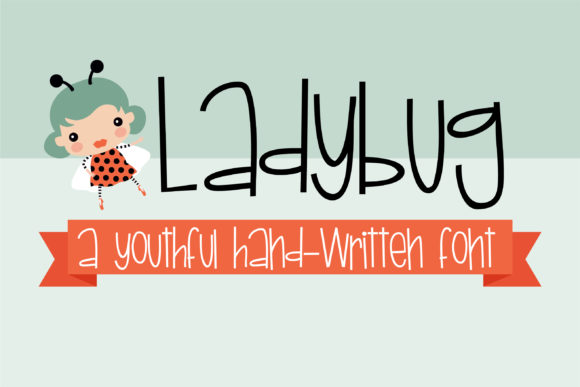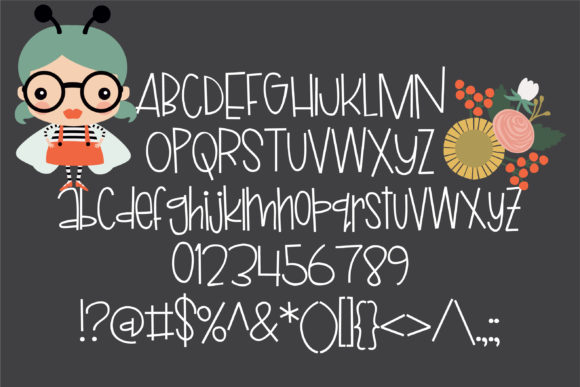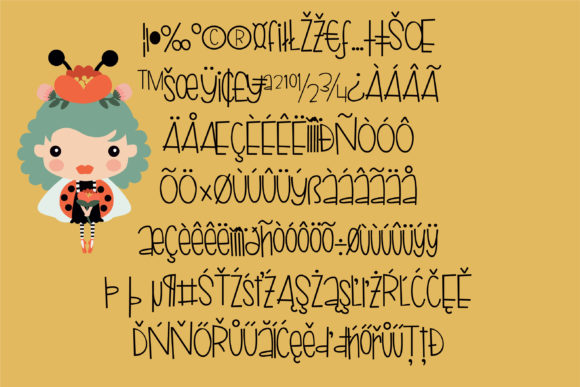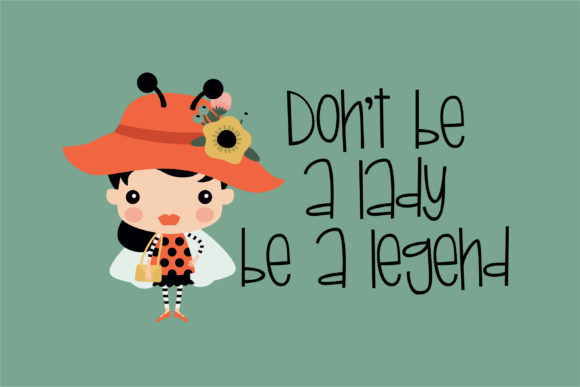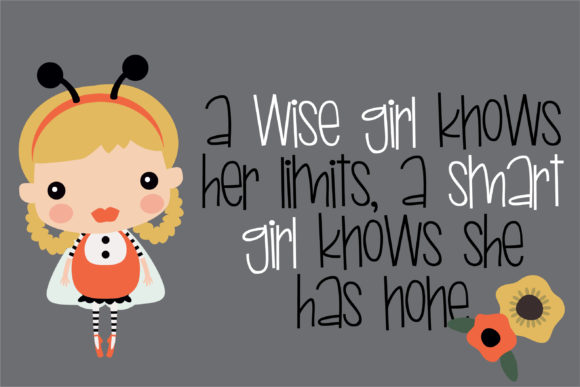
HomeScript FontsLadybug Font Script Fonts Ladybug Font FacebookXPinterestWhatsApp Ladybug Font Poster 2 Ladybug Font Poster 3 Ladybug Font Poster 4 Ladybug Font Poster 5 About Ladybug Font Ladybug is a whimsical handwritten font with a playful charm. It will add an adorable feel to any design project! DOWNLOAD NOW People also explored Aquatix Font Dixey Font Really Dizzy Font Fossegrim Clarra Font Daylight Font Arunika Font Dingbats Abstract Font Simple Handlettering Font 290 0 TagsLadybug Font Previous articleDragon Breath FontNext articleMythological Font LEAVE A REPLY Cancel reply Comment: Please enter your comment! Name:* Please enter your name here Email:* You have entered an incorrect email address! Please enter your email address here Website: Save my name, email, and website in this browser for the next time I comment. Personal Use Free Sushi Stroke Personal Use Free Read more about this font Stone Cold Personal Use Free Read more about this font Rolling Door Personal Use Free Read more about this font The Sweet Neo Personal Use Free Read more about this font BLOG The 10 Best Handwriting Fonts to Add Personality to Your Designs 10 of the Best Handwriting Fonts for Adding Personality to Your Designs There will undoubtedly be no other better choice than handwriting fonts to give... How to Install and Use Fonts on Windows, macOS, and Web Projects Best Fonts for YouTube Videos: Make Your Thumbnails Stand Out 5 Fonts That Will Dominate Design Trends in 2026